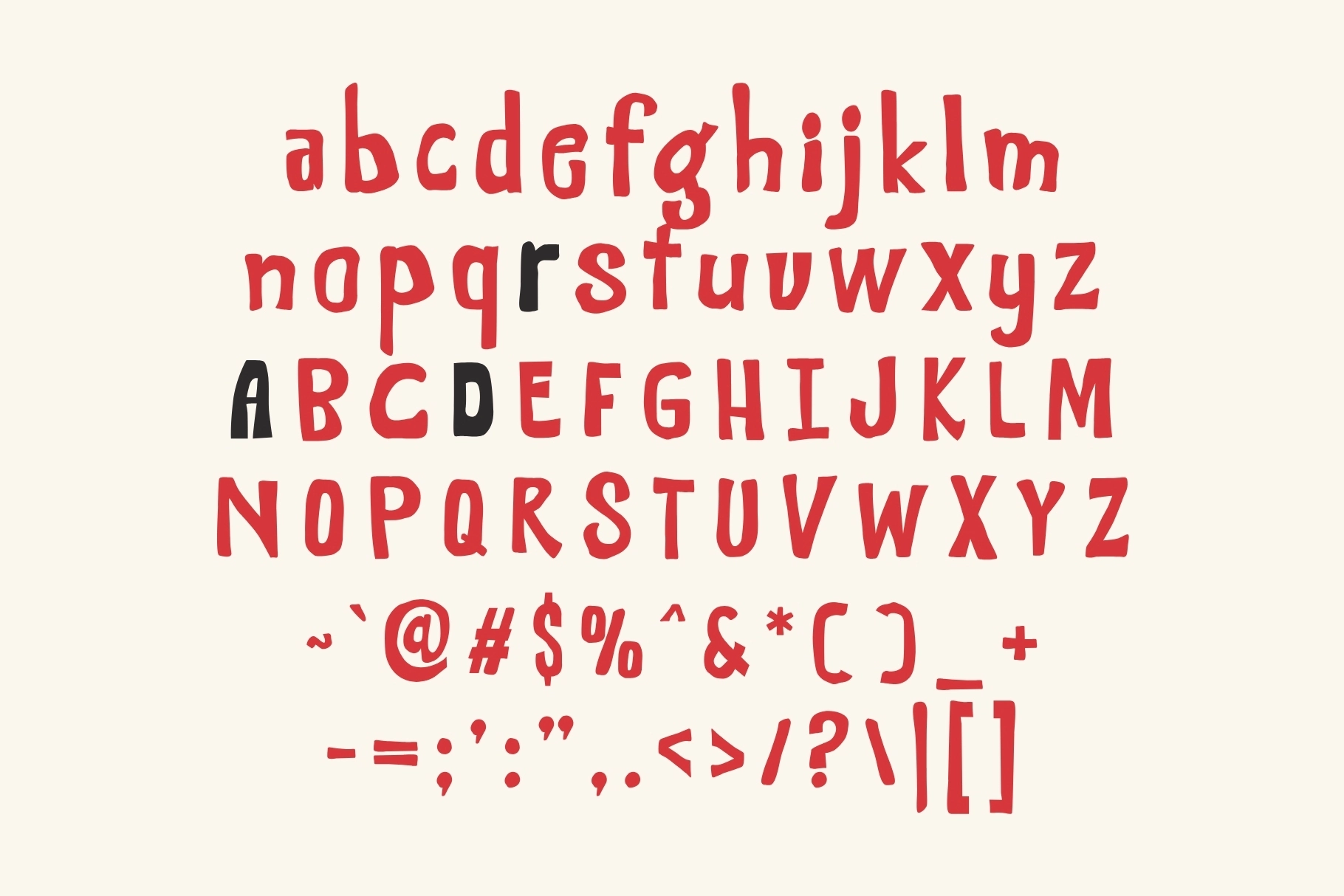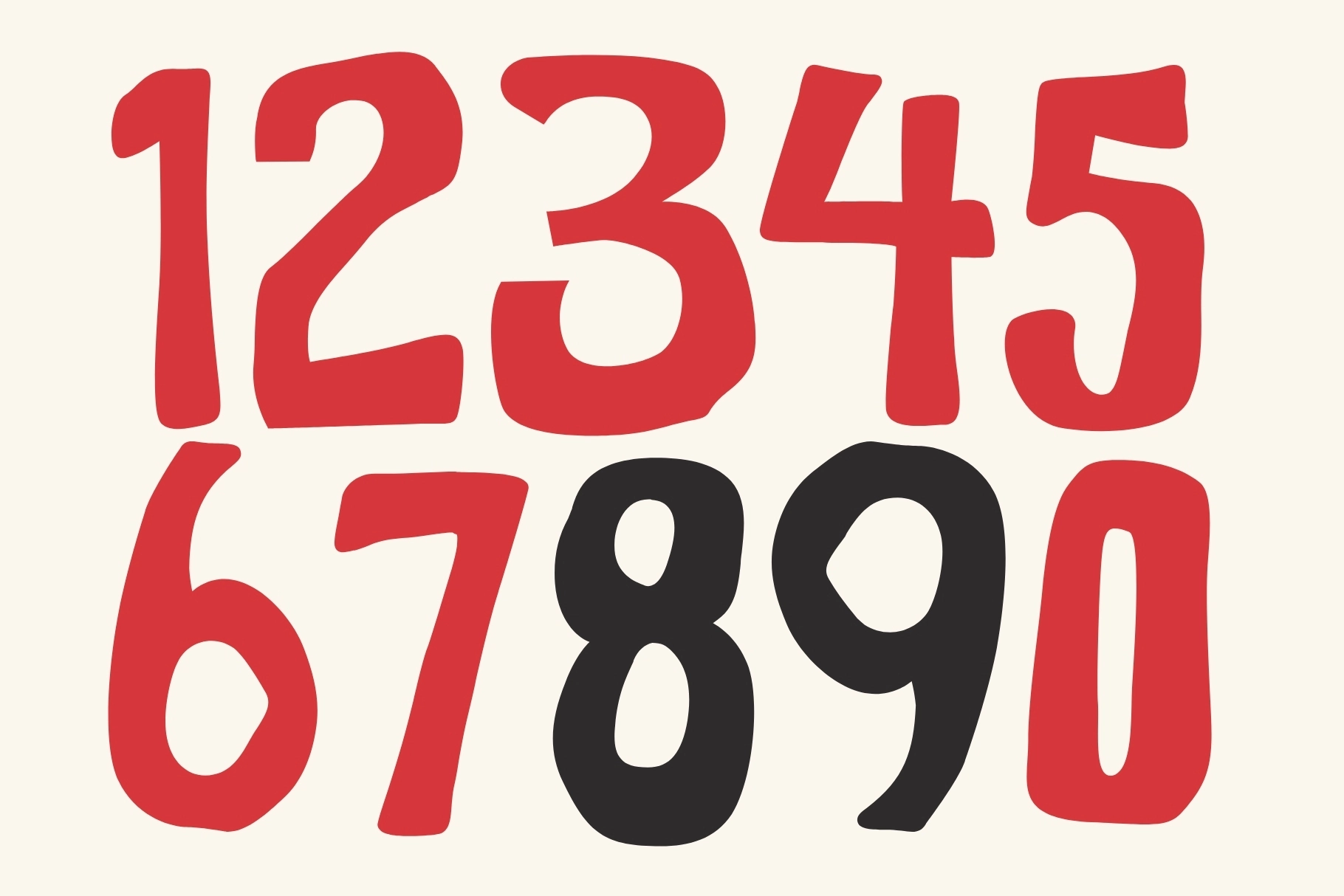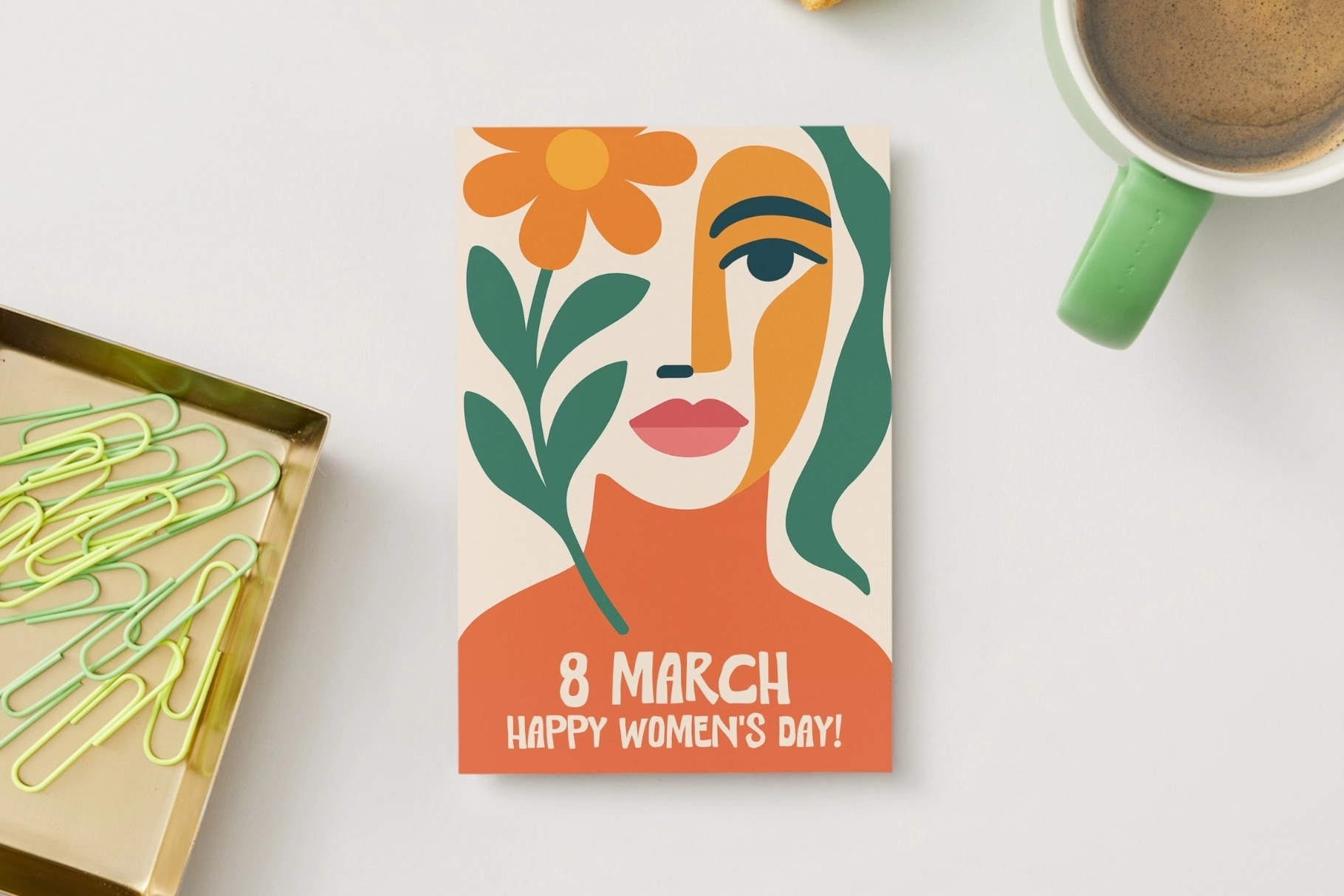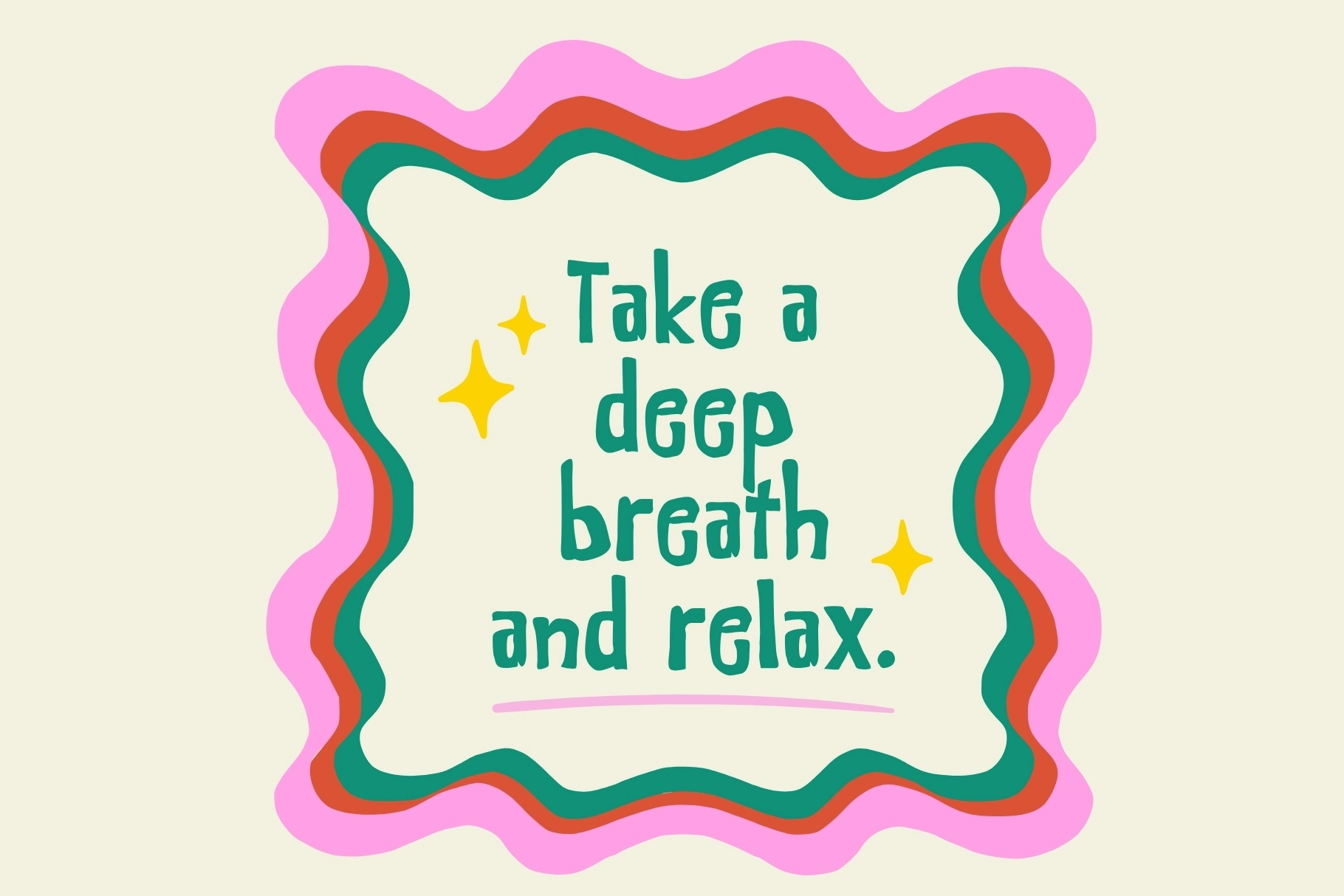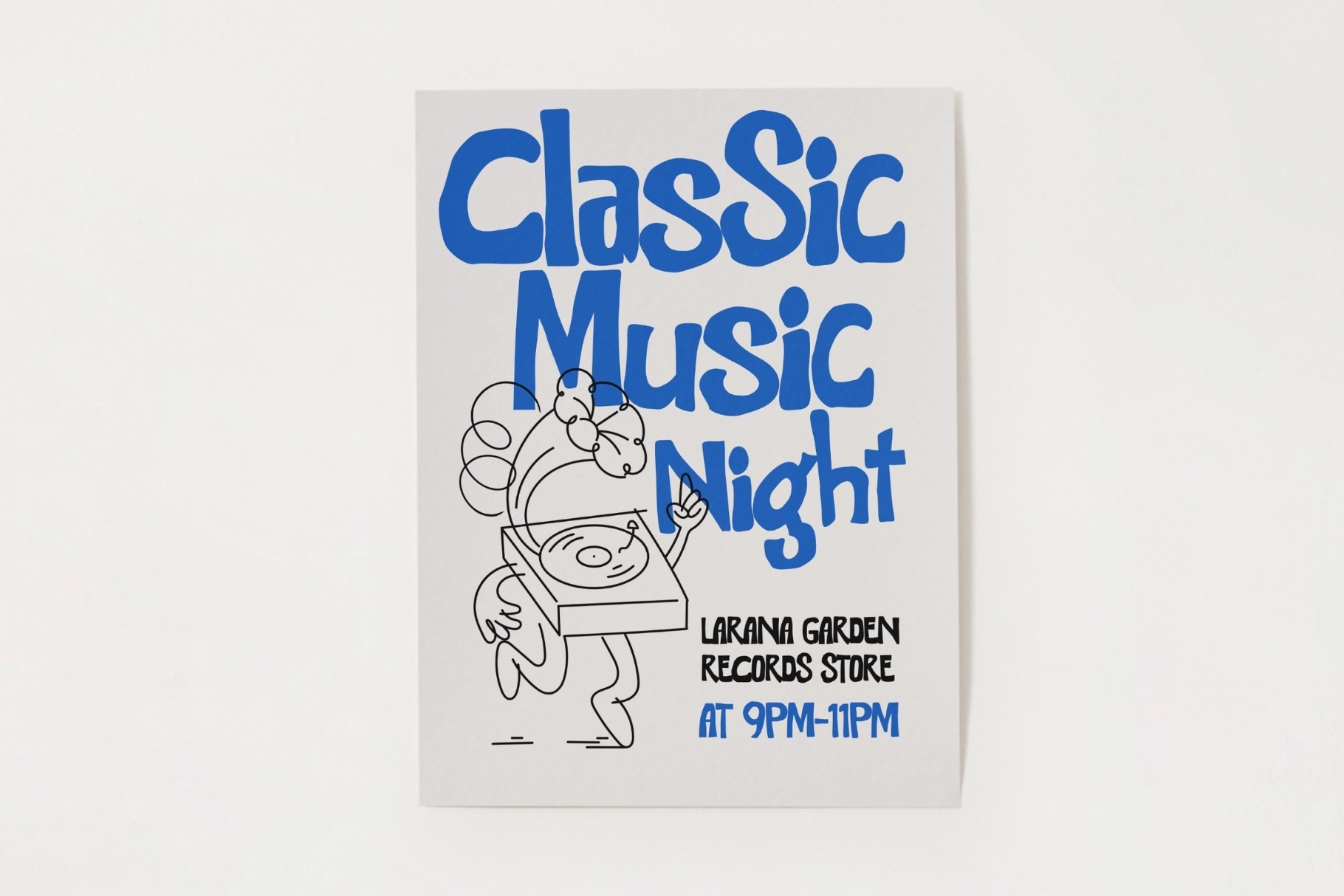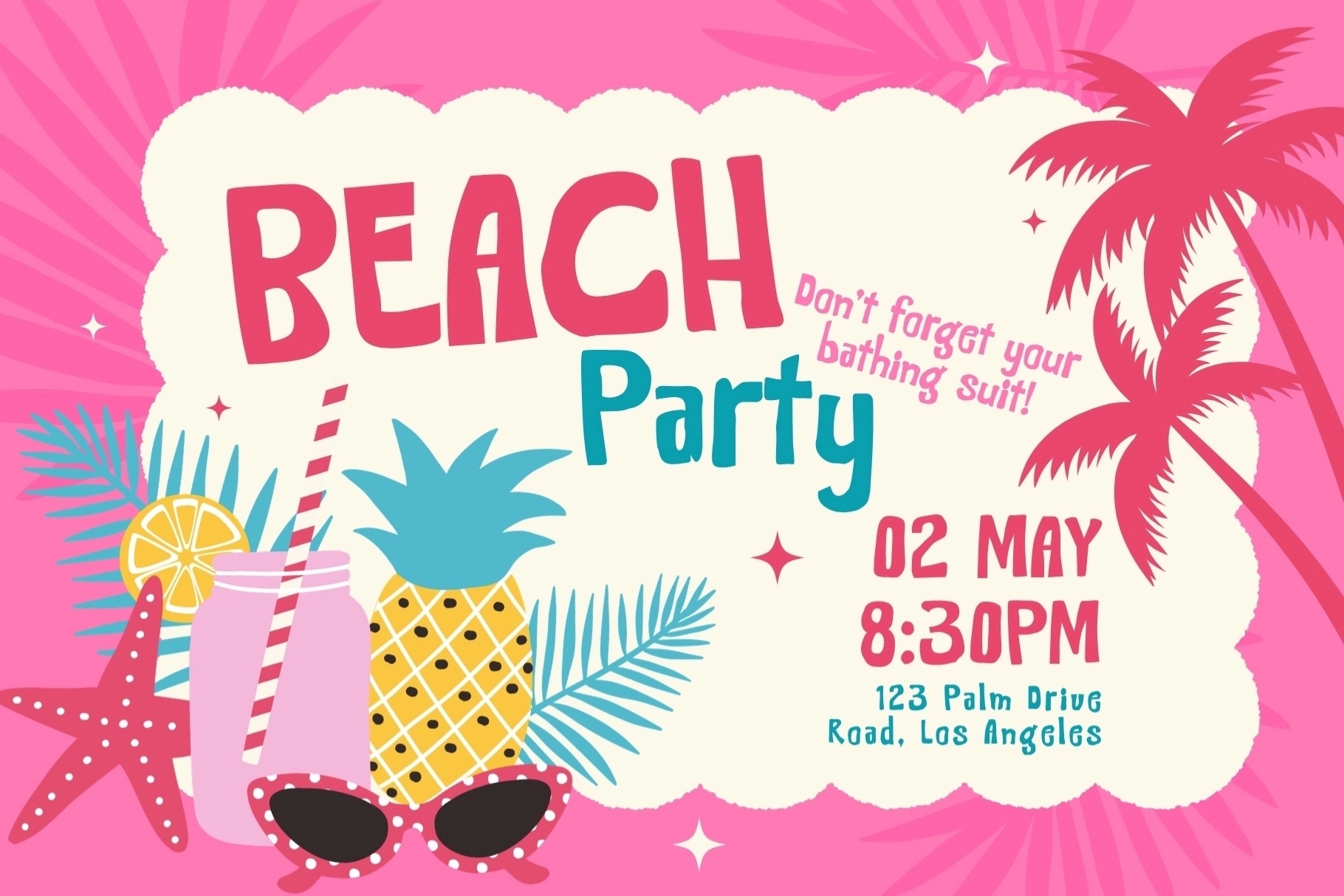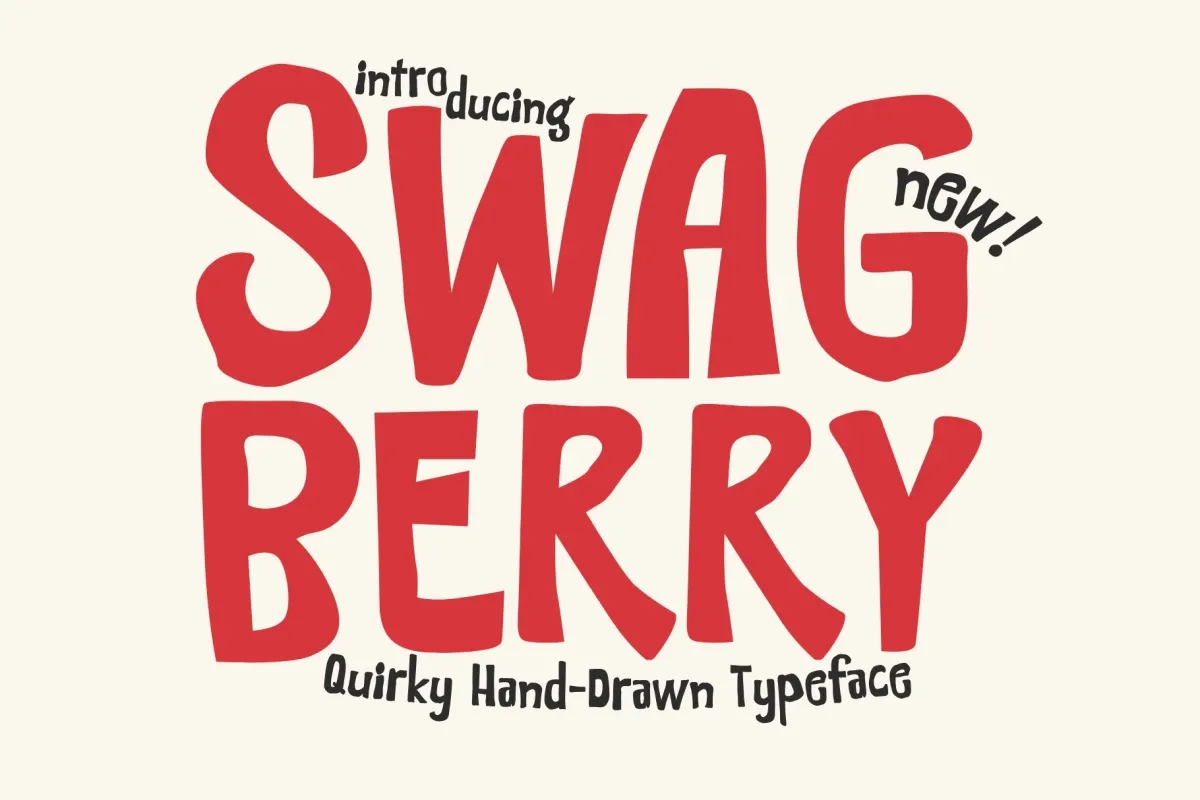
Swagberry - Handdrawn Playful Font
Swagberry - Handdrawn Playful Font is a bold and funky typeface filled with playful energy, retro charm, and youthful personality. Its expressive curves and relaxed, hand-drawn shapes create a vibrant and carefree feel, making every design look more lively and engaging.
This quirky display font embraces natural imperfections with organic forms and a casual flow, giving it a warm, handcrafted character. Perfect for headlines, branding, posters, and creative projects, it adds a fun, nostalgic yet modern touch that instantly grabs attention and leaves a memorable impression.
• Numerals & Punctuation
• Handdrawn Playful Style
• Unique Organic Letterforms